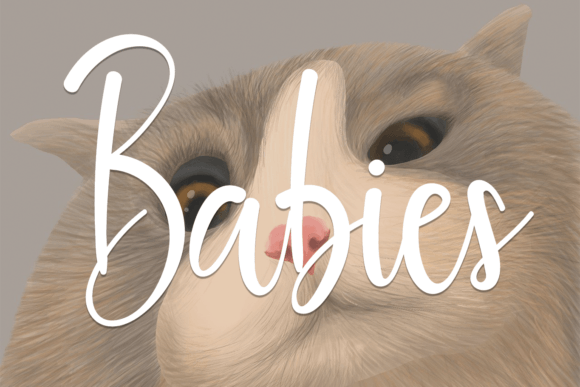
The Quest for the Perfect Font: Discovering Babies
I still remember the design project that led me to fall in love with the Babies font. I was working on a branding project for a new baby care product line, and I was struggling to find a font that captured the essence of warmth, care, and sophistication. The client wanted a font that was both classy and modern, and I was on a mission to find it. After hours of scouring through font libraries and testing out different options, I stumbled upon Babies – a beautiful handwritten font that instantly stole my heart.
An Honest Review of Babies Font
So, what makes Babies font so special? Let’s dive into the details!
What I Love About Babies Font ✨
- 💫 Elegant and classy calligraphic influences that add a touch of sophistication to any project
- ✅ Highly legible, even at small font sizes – perfect for body text or captions
- 🎨 Versatile and adaptable – works beautifully with a wide range of design styles and themes
- 🌈 Beautifully crafted to evoke a sense of warmth, comfort, and joy
- ⚠️ Some users may find the font a tad too ornate for very informal or playful projects
- ⚠️ Limited availability of certain OpenType features in certain software applications
The Story Behind Babies Font
The story behind Babies font is one of passion and dedication. According to the font’s designer, the inspiration for Babies came from a love of calligraphy and a desire to create a font that was both elegant and approachable. The designer spent countless hours perfecting the font’s curves and lines, resulting in a beautiful, hand-crafted font that’s perfect for a wide range of design projects.
| Font Name | Babies Font |
| What is the best use for Babies font? | Babies font is perfect for designs that require a touch of elegance and sophistication, such as branding, packaging, and wedding invitations. |
| Is Babies font suitable for body text? | Yes, Babies font is highly legible and can be used for body text, especially at larger font sizes. |
| Does Babies font come with OpenType features? | Yes, Babies font includes a range of OpenType features, including ligatures and stylistic alternates. |